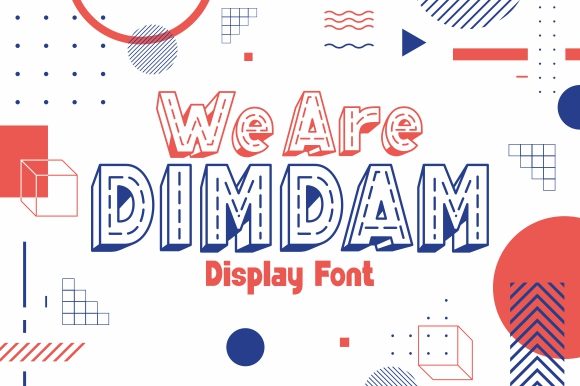
Behold, the We Are Dimdam font – a typographic marvel that will transform your creative visions into captivating realities. Crafted by the ingenious minds at EKNOJI, this display font is an artistic masterpiece that transcends boundaries and ignites inspiration.
In a world saturated with monotony, We Are Dimdam emerges as a beacon of originality, captivating audiences with its dynamic three-dimensional form. This font is not merely a collection of characters; it's an invitation to explore the boundless realm of imagination, where words dance with newfound energy and visual narratives come alive.
Imagine your designs adorned with the We Are Dimdam font, exuding an aura of sophistication and intrigue. Its meticulously crafted letterforms command attention, drawing viewers into a world of depth and dimension. Whether you're creating logos, posters, website banners, or social media graphics, We Are Dimdam will elevate your designs to unprecedented heights.
The allure of We Are Dimdam lies not only in its aesthetic brilliance but also in its versatility. With its captivating 3D structure, this font seamlessly adapts to a myriad of design styles and themes. Unleash your creativity and experiment with infinite variations, tailoring the font's appearance to perfectly align with your artistic vision.
We Are Dimdam is not just a font; it's an experience. It's an opportunity to break free from the shackles of convention and embrace the limitless possibilities of creative expression. Let your imagination soar as you witness your designs transformed into captivating masterpieces, leaving an indelible mark on the minds of your audience.
The We Are Dimdam display font is more than just a collection of characters; it's an artistic journey waiting to be embarked upon. Discover the limitless possibilities it holds and elevate your designs to extraordinary new realms. Dare to be different, dare to be bold – the We Are Dimdam font awaits your creative touch. Embrace its allure and unlock the true potential of your artistic vision today!